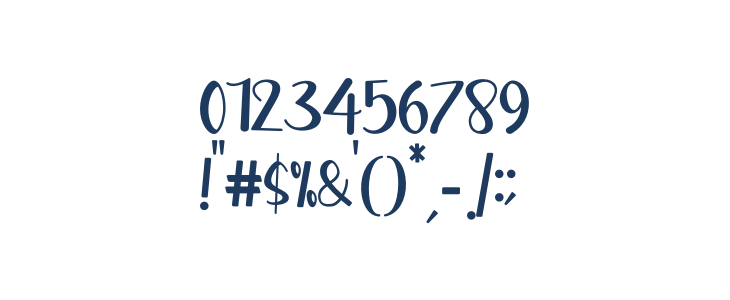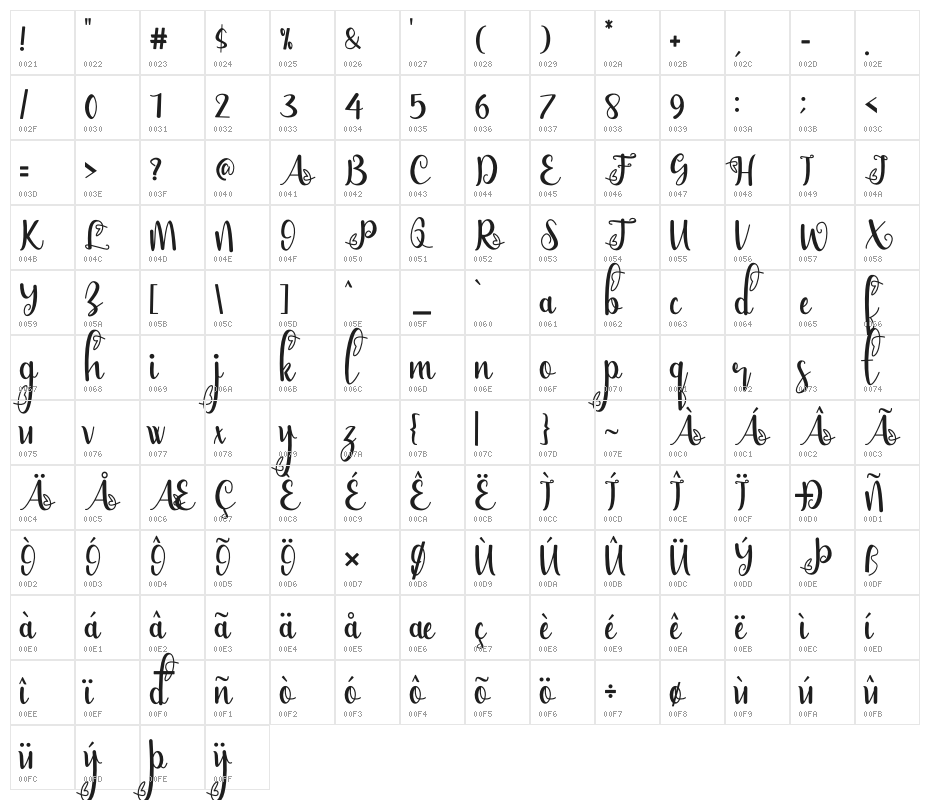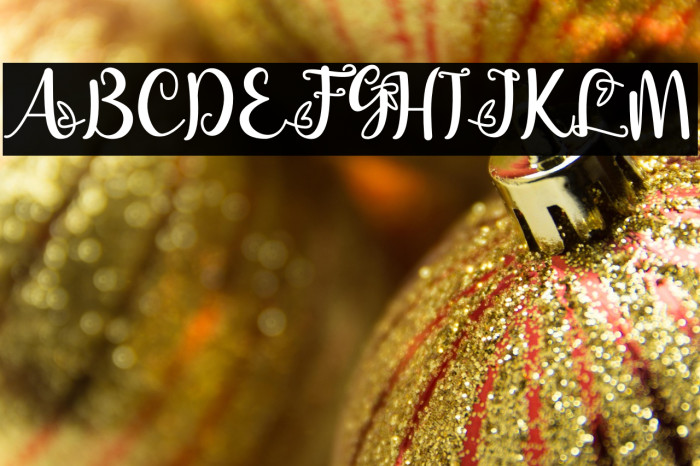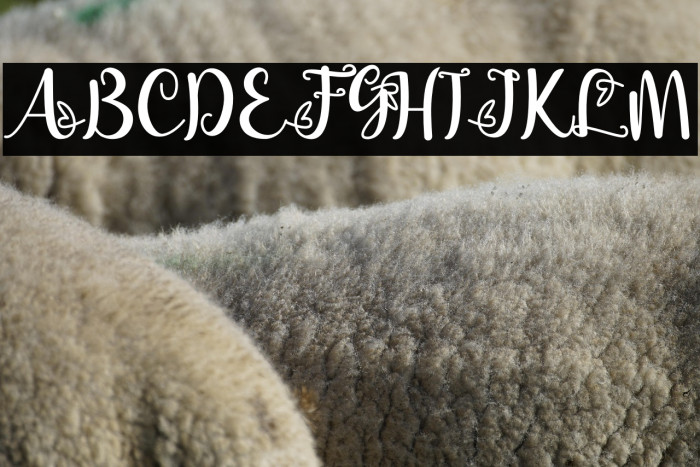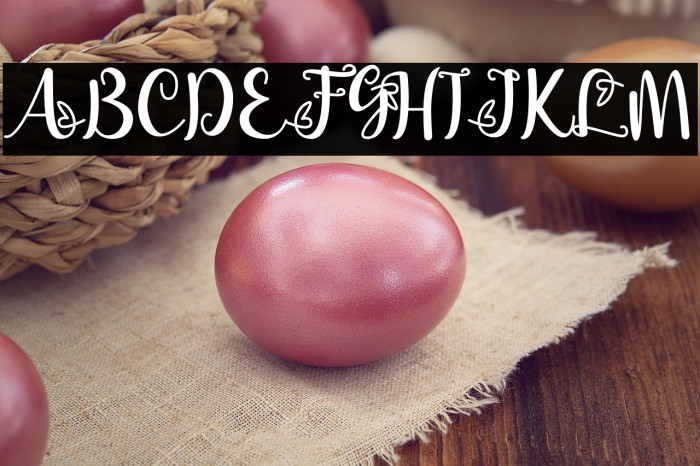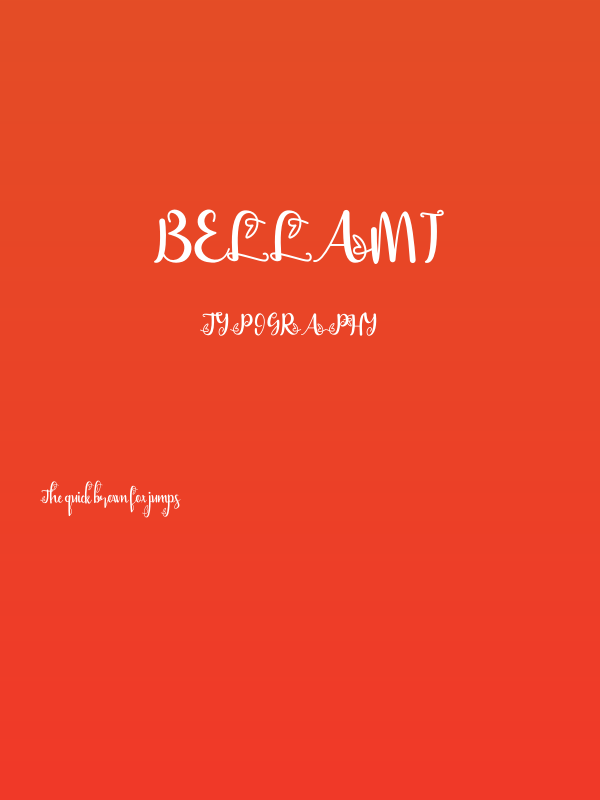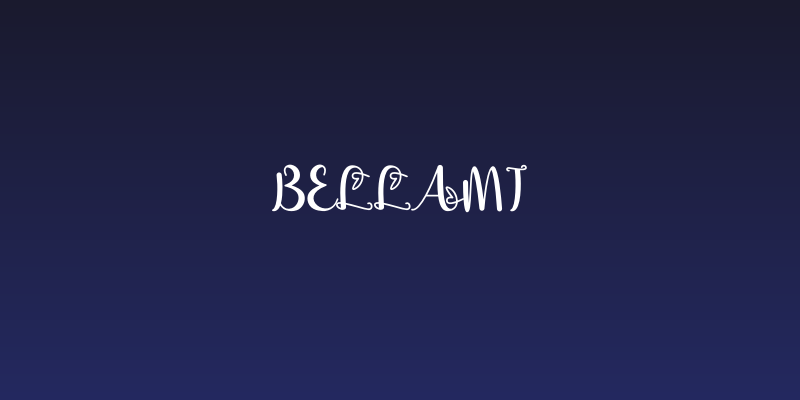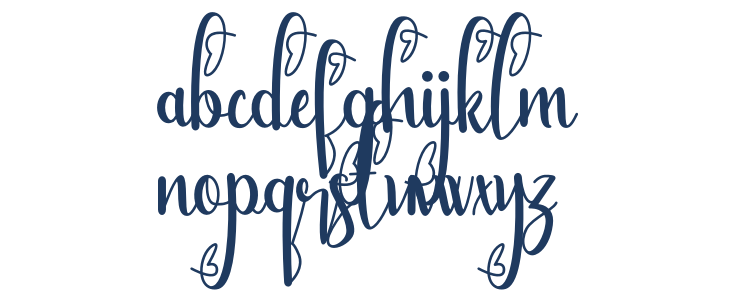
Bellami Font
Bellami Description
This font exhibits a playful and elegant script style, characterized by its flowing, cursive letters with decorative swashes and flourishes. The uppercase letters are particularly ornate, featuring loops and curls that add a whimsical touch. The lowercase letters maintain a consistent flow, with some characters having unique, extended tails. The numerals are designed to complement the letterforms, maintaining the same playful and elegant aesthetic. Special characters are also included, each crafted with the same attention to detail and decorative flair. This font is ideal for projects that require a touch of elegance and creativity, such as invitations, greeting cards, and branding materials.
| Use Case | Headlines, Logos, Decorative text |
| Proposed Projects | Ideal for invitations, greeting cards, branding, and decorative projects. |